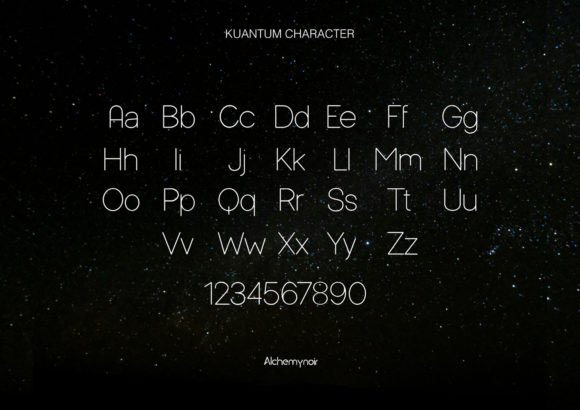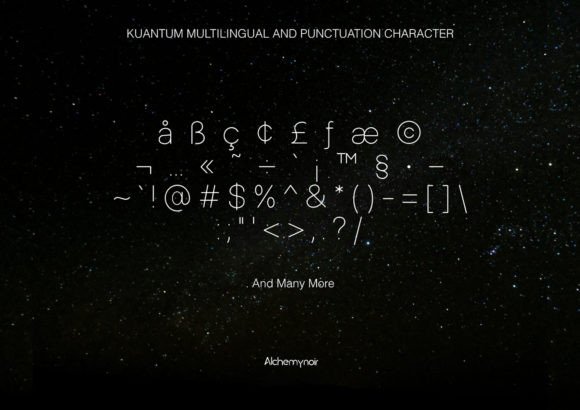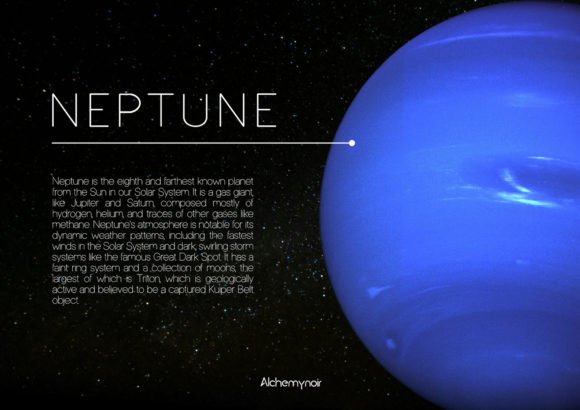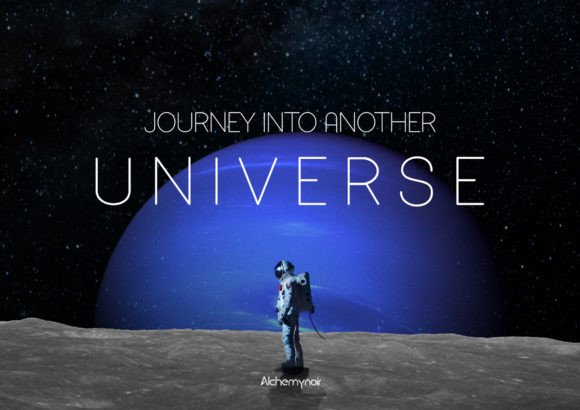
Introduction to Kuantum Font
Have you ever been working on a creative project and struggled to find the perfect font to match your vision? It’s like searching for a needle in a haystack, right? You browse through countless options, but none seem to capture the essence of your design. Well, we’re excited to introduce you to Kuantum Font, a simple yet powerful sans-serif typeface that’s about to become your go-to design resource.
Whether you’re a seasoned designer or just starting out, Kuantum Font offers a high-quality, versatile solution for your design needs. Its modern aesthetic and transparent background make it perfect for branding, posters, apparel, and more. And the best part? It’s available for free download, so you can start creating with Kuantum Font today.
Key Features of Kuantum Font
- High-quality design resource suitable for various creative projects, including graphic design, digital art, and typography.
- Comes with a transparent background, allowing designers to easily integrate it into their projects without any visual distractions.
- Available in a single size, making it easy to scale and use in various design contexts.
- Designed to be highly legible and visually appealing, with a unique aesthetic that sets it apart from other fonts.
Honest Review: Kuantum Font
As a designer, I’m always on the lookout for high-quality design resources that can elevate my creative project. Recently, I stumbled upon the Kuantum Font, and I’m excited to share my honest review.
- ✨ The font is incredibly versatile, with a unique blend of futuristic and minimalist styles that can be used for a wide range of creative projects.
- ✨ The transparent background option allows for seamless integration with images and other design elements.
- ⚠️ The font is not as extensive as some other font collections, with a relatively small character set.
- ⚠️ Some users may find the font’s futuristic style too trendy or gimmicky.
Overall, I’m impressed with the Kuantum Font’s quality and versatility. While it may not be perfect, it’s a solid addition to any designer’s toolkit. If you’re looking for a high-quality, free design resource, the Kuantum Font is definitely worth checking out.
Tips for Getting the Most Out of Kuantum Font
To get the most out of Kuantum Font, use it in combination with other high-quality design resources, such as graphics and images. Experiment with different font sizes, colors, and effects to create unique and visually appealing designs. You can also use the font to create a consistent brand identity across all your creative projects.
Kuantum Font is a versatile design resource that can be used in a variety of creative projects, including logos, branding materials, social media graphics, and presentations. Its transparent background makes it easy to use in combination with other design elements, and its high-quality design makes it perfect for professional and personal projects alike.
Is the Kuantum Font suitable for high-resolution designs?
Yes, the Kuantum Font is designed to be high-quality and scalable, making it ideal for use in high-resolution designs, including those with transparent backgrounds. The font’s crisp, clear lines ensure that it remains legible and visually appealing even at large sizes.